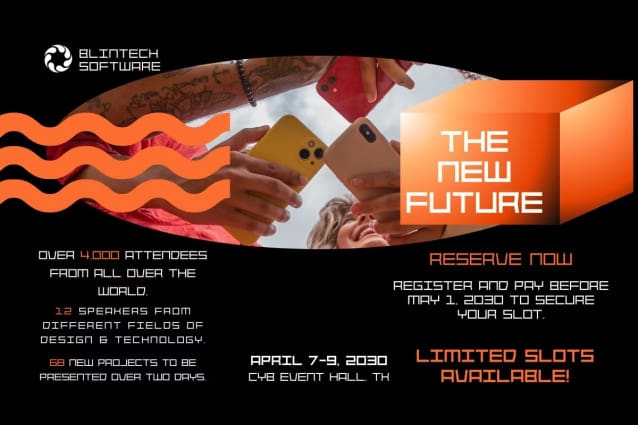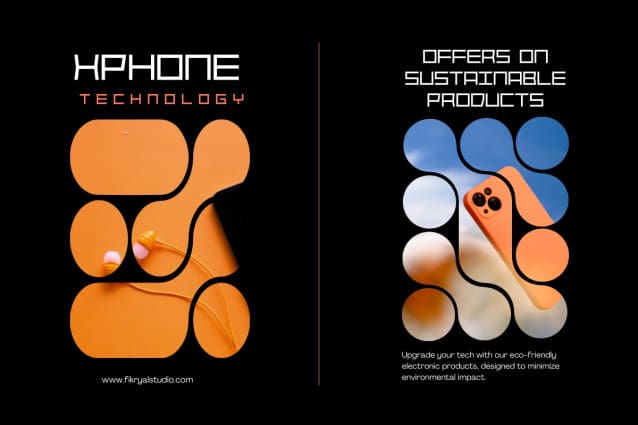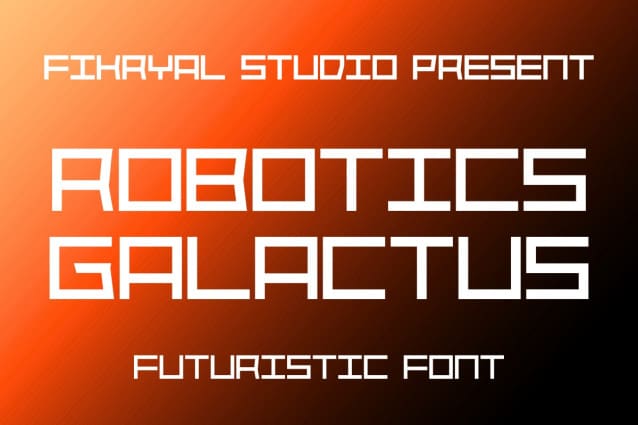
Robotics Galactus Font
Robotics Galactus Font – Futuristic Font is a bold and modern sans serif typeface designed to embody the essence of futuristic aesthetics. This all-caps font features a blocky, geometric structure, perfect for tech-themed designs, sci-fi projects, or any application that demands a modern, advanced look. It offers six versatile styles: Thin, Thin Italic, Regular, Italic, Bold, and Bold Italic, allowing for flexibility and dynamic visual impact in various creative contexts.